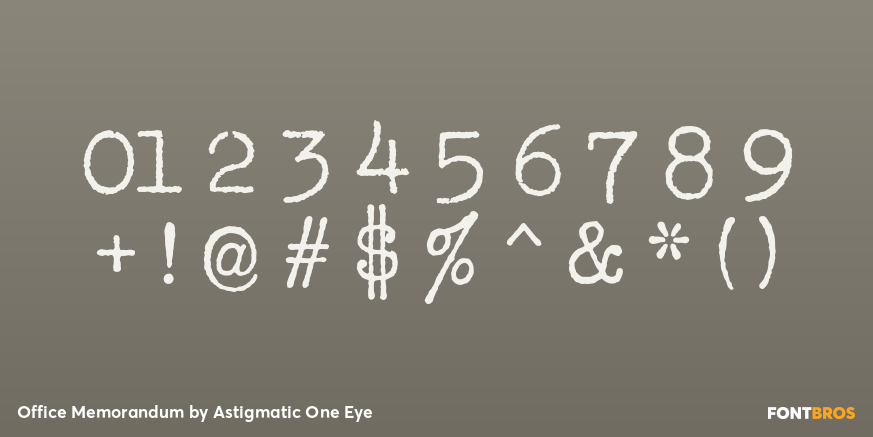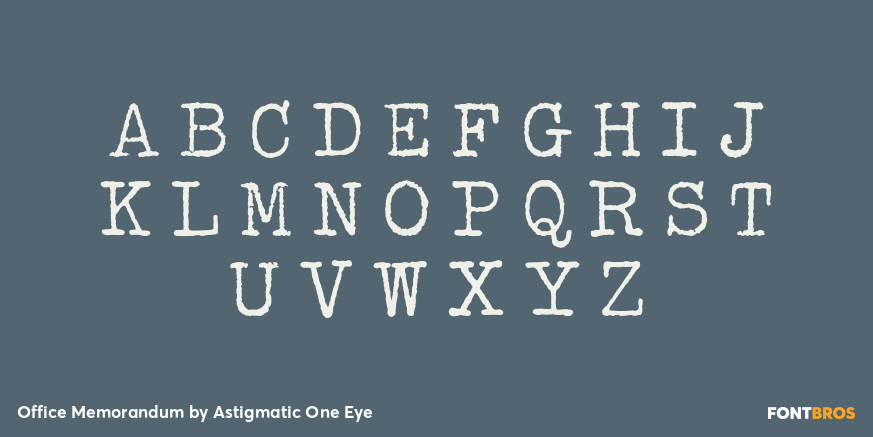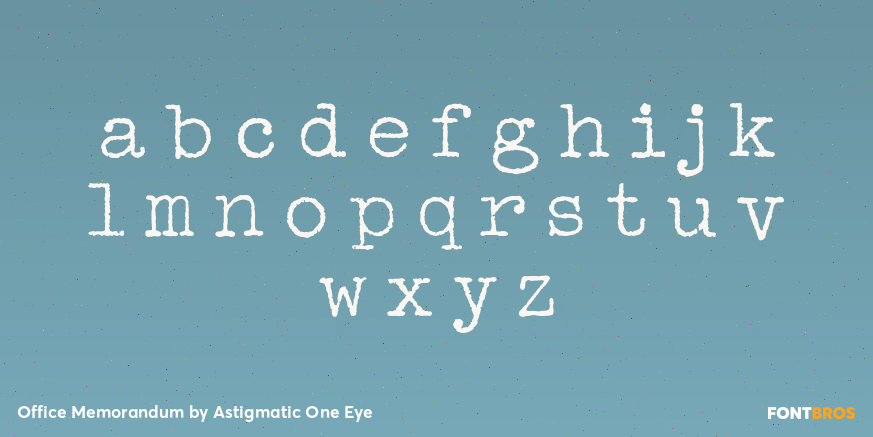
Office Memorandum
Font Family by Astigmatic One Eye
A typeface made from vintage typewriter samples and meticulously compiled into a complete character set.